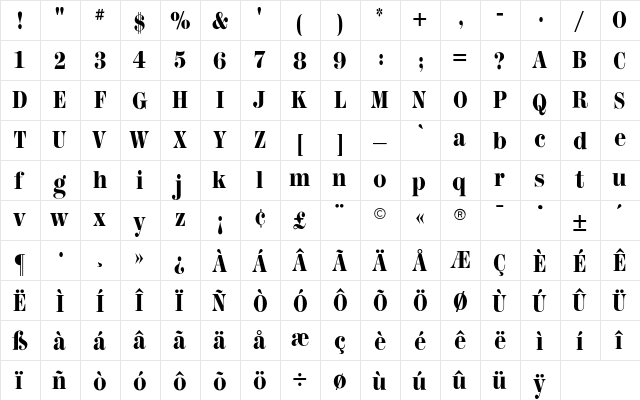
Modern CG HeavyCondensed Regular
Design Context for Modern CG HeavyCondensed Typeface
Modern CG HeavyCondensed offers clean, dependable letterforms without strong stylistic allegiance, making it a practical choice for designers who need flexibility. The condensed width makes it efficient for tight spaces without sacrificing legibility.